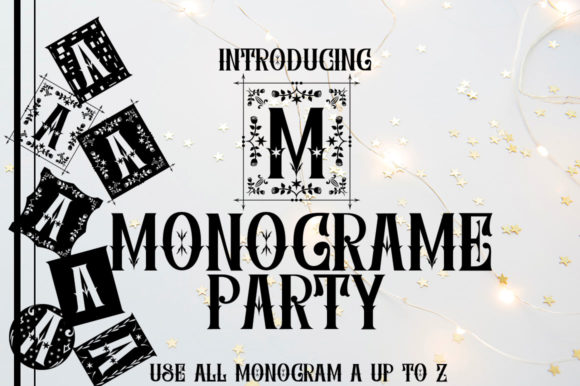
Monograme Party Font
**Introducing Monogram Party Font**
Immerse yourself in the enchanting world of Monogram Party Font, a captivating display font that exudes vintage elegance and playful charm. With its meticulous detailing and timeless appeal, this font is an artist's dream, ready to transform your creative visions into captivating masterpieces.
Indulge in the whimsical dance of each letterform, meticulously crafted to evoke a sense of nostalgia and wonder. Monogram Party's distinct curves and flourishes ignite a spark of joy, breathing life into your designs with a touch of playful sophistication.
**Unlock a World of Creative Possibilities**
Unleash your imagination and let Monogram Party Font guide you on an artistic journey. Its versatility knows no bounds, offering endless possibilities for expression. Whether you're crafting elegant invitations, enchanting social media posts, or captivating branding materials, this font will add a touch of timeless beauty to every project.
Indulge in the sweet nostalgia of vintage design, where intricate details and charming imperfections create a timeless allure. With Monogram Party Font, you'll transport your audience back to an era of grace and elegance, leaving an unforgettable impression on their hearts and minds.
**Ignite Your Inner Artist**
Let Monogram Party Font ignite the flame of your creativity and watch your ideas bloom into breathtaking designs. Its exceptional quality and versatility make it the perfect choice for discerning artists, designers, and creatives who seek to make a lasting impact.
Experience the joy of crafting with a font that effortlessly complements your unique style and artistic vision. From whimsical illustrations to stunning logos, Monogram Party Font empowers you to express yourself with confidence and creativity.
**Embrace the Vintage Charm**
Embrace the timeless charm of Monogram Party Font and elevate your designs to new heights of sophistication. Its vintage-inspired aesthetic evokes a sense of nostalgia and warmth, creating a connection with your audience that transcends time.
Indulge in the intricate details and delicate curves that define this exquisite font. Each letterform is a masterpiece in itself, inviting you to explore the depths of your creativity and discover hidden gems of inspiration.
**Why Choose Monogram Party Font?**
* Unleash your creativity with a font that knows no bounds.
* Capture the essence of vintage charm with its nostalgic appeal.
* Transform your designs into captivating masterpieces with meticulous detailing.
* Ignite your passion for art with a font that inspires and empowers.
* Leave an unforgettable impression with timeless beauty and sophistication.
Don't resist the allure of Monogram Party Font. Embrace its vintage charm and let your creativity soar to new heights. Experience the joy of crafting with a font that effortlessly complements your unique style and artistic vision, and watch your designs blossom into breathtaking masterpieces.